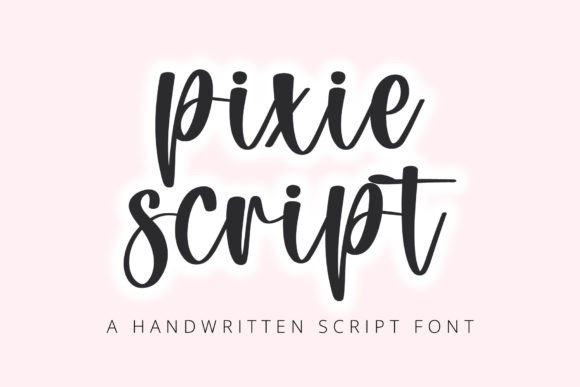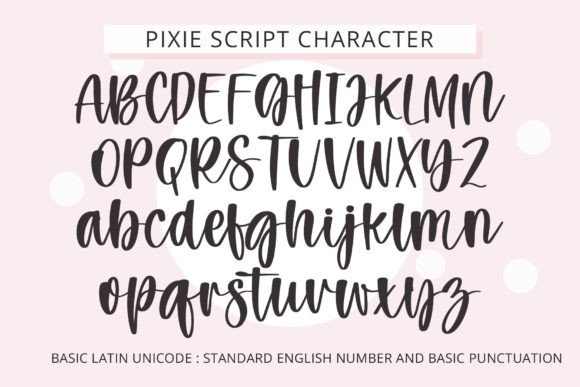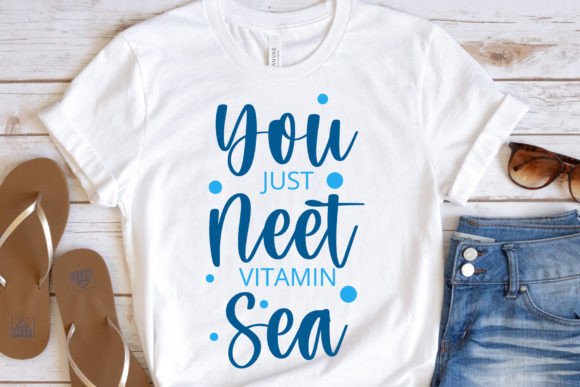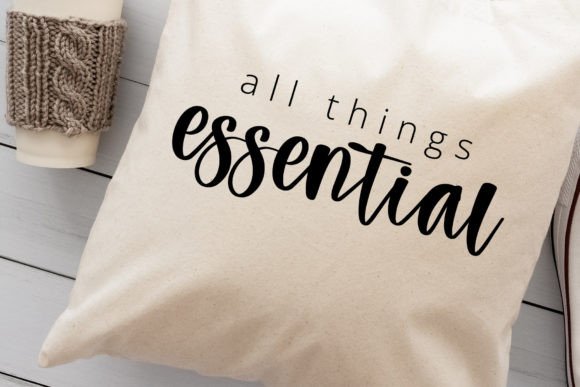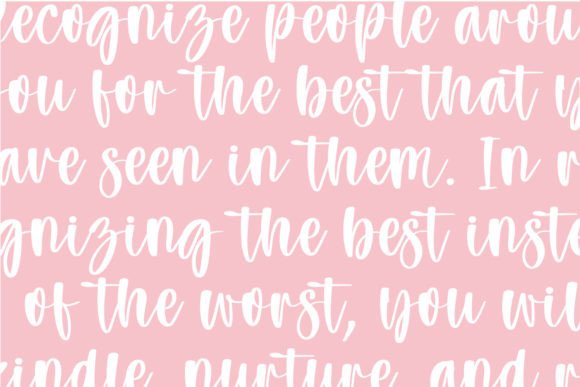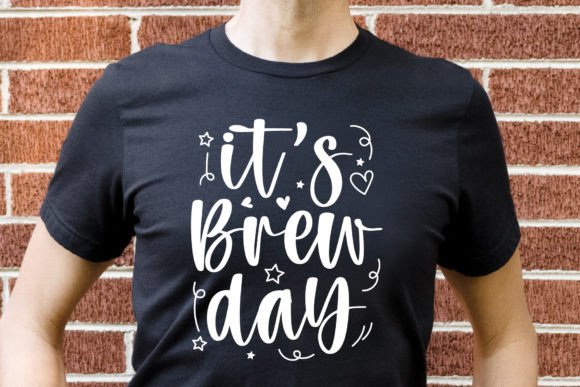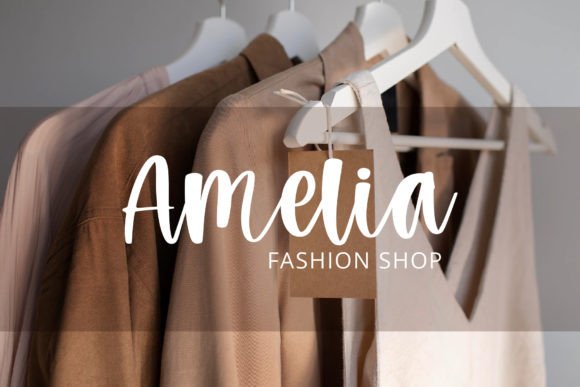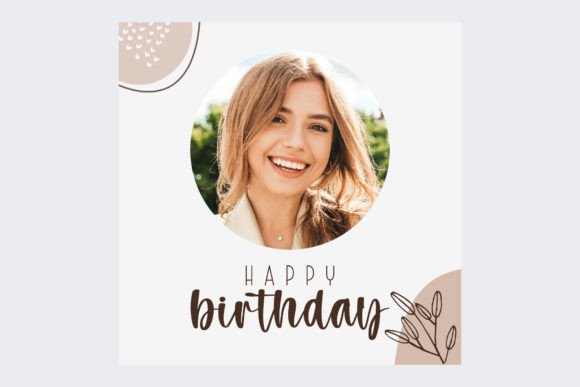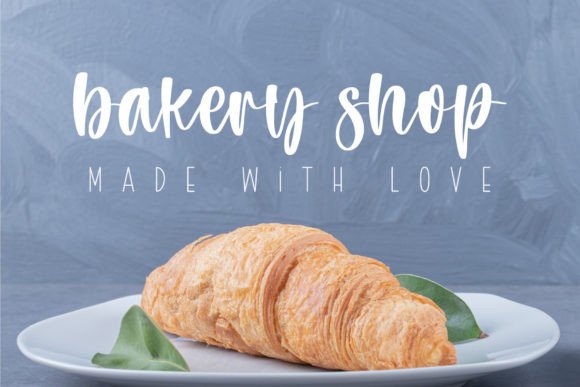
Pixie Script Font
Pixie Script is a sweet and cute handwritten font. Fall in love with its incredibly versatile style and use it to create gorgeous wedding invitations, beautiful stationary art, eye-catching social media posts, and much more!